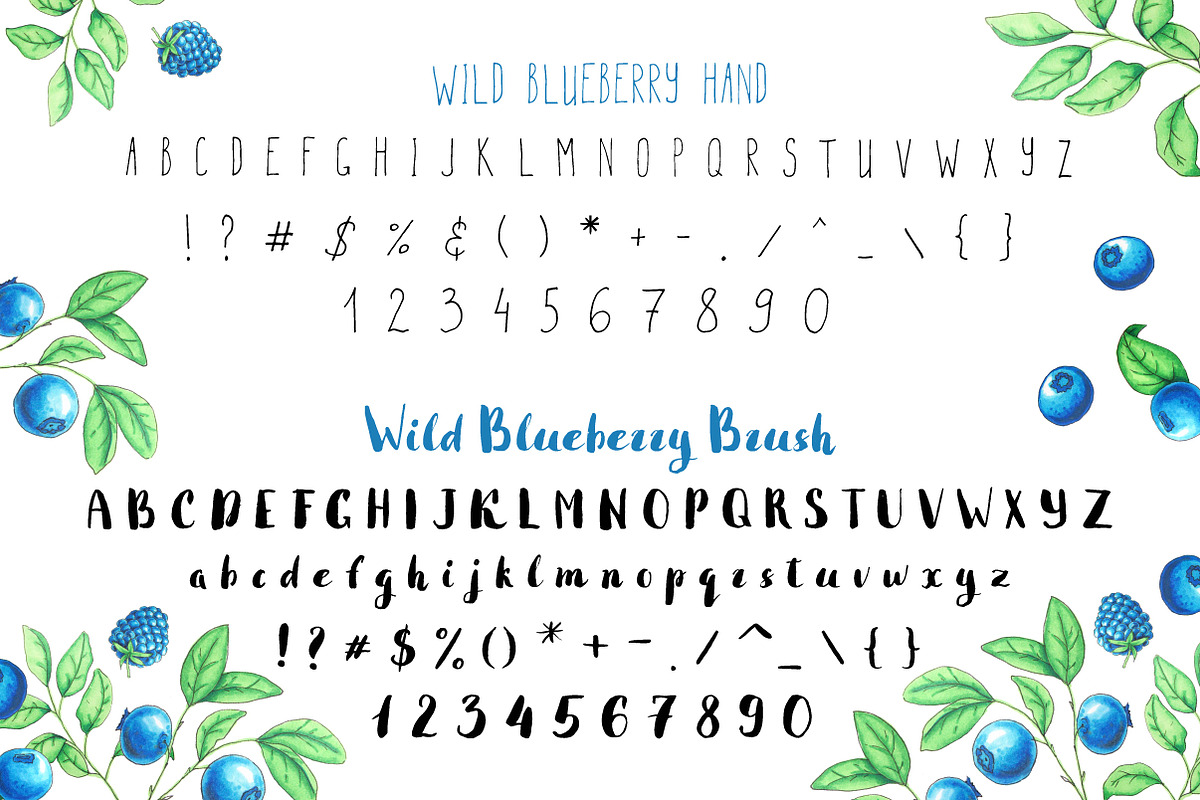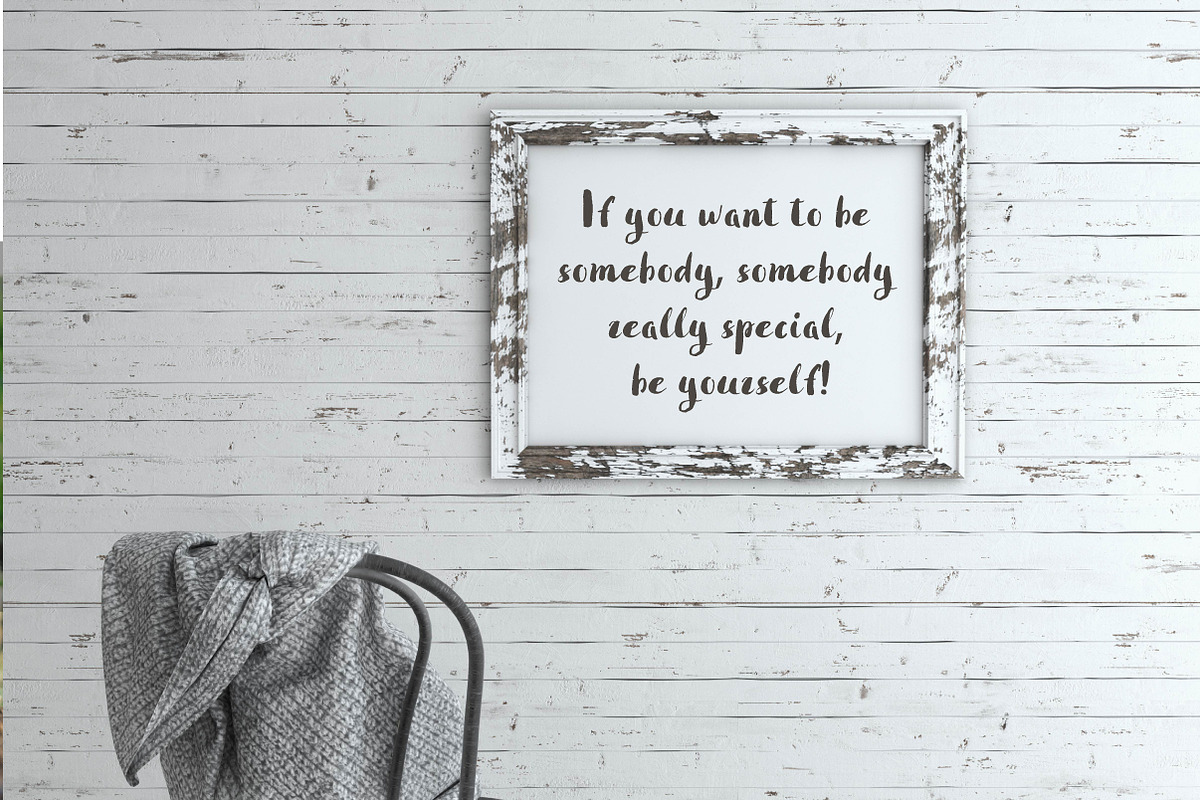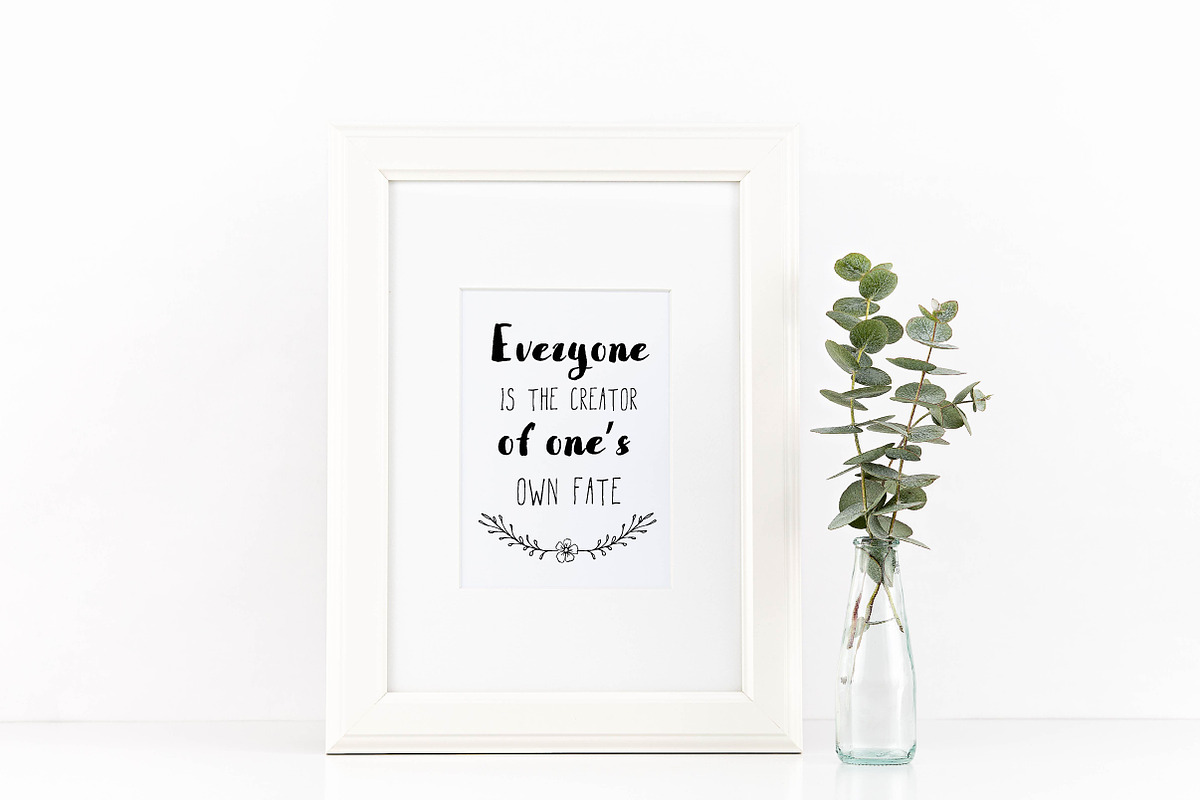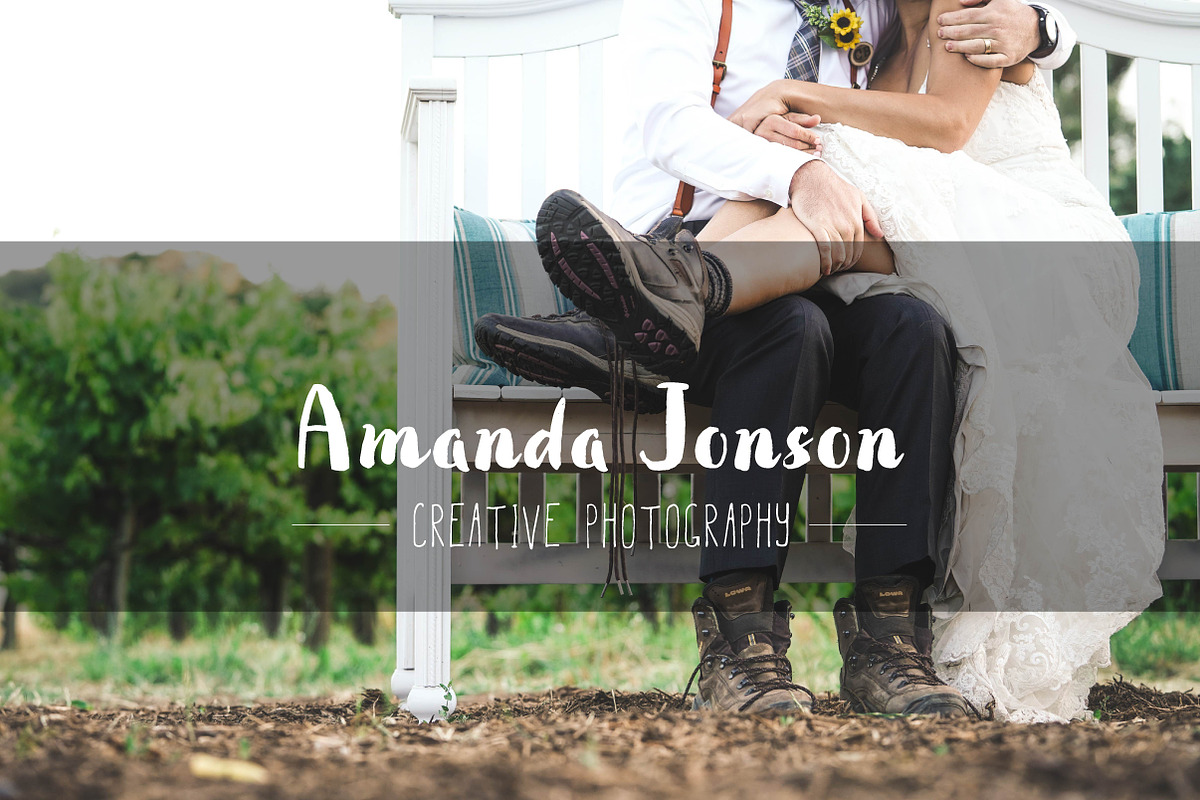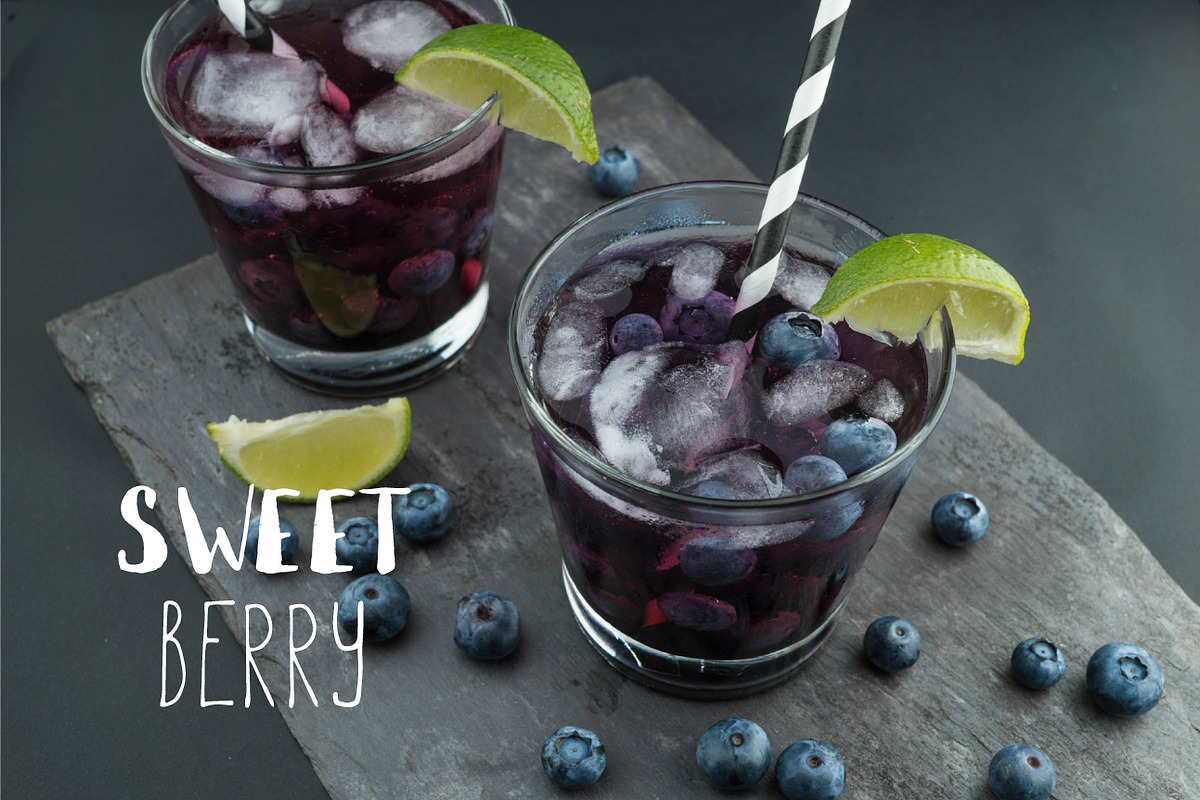
Wild Blueberry Font Duo
Introducing Wild Blueberry Font Duo - creative hand drawn and script style, every single letters have been carefully crafted to make your text looks beautiful. This font duo will perfect for many different projects : quotes, blog header, poster, wedding, branding, logo, fashion, apparel, letter, invitation, stationery, etc.
Wild Blueberry Brush : A creative brush script with a modern grunge brushstroke, perfect for Wedding invitation, Logos, Greeting Cards,and others.
Wild Blueberry Hand : A playful hand lettered font. Pretty cute combined withWild Blueberry Brush.